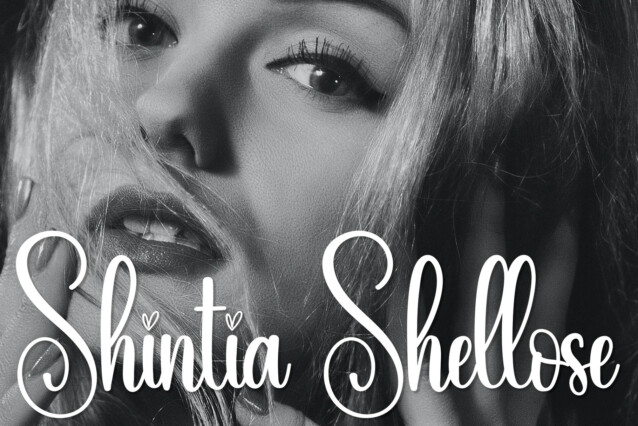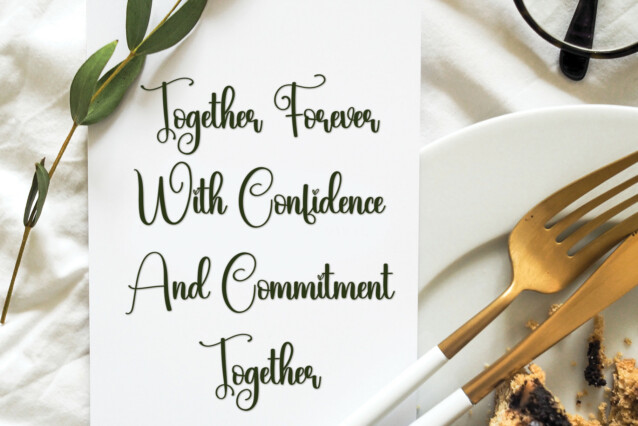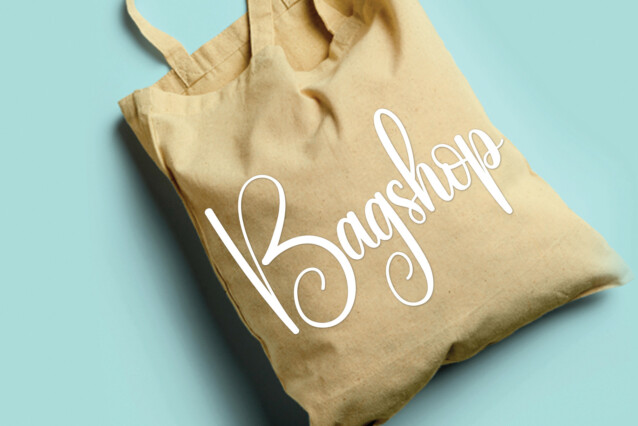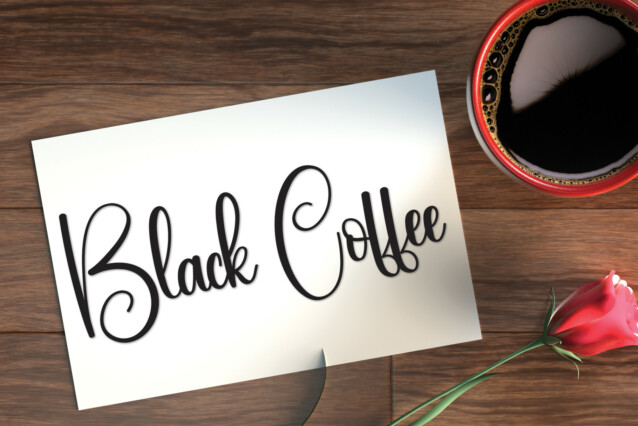
Lonely Script Font
Lonely Script Font is a modern handwritten font. Stylish, graceful, and flowing, this font will definitely elevate the look of any of your beautiful creations while keeping them grounded and natural.